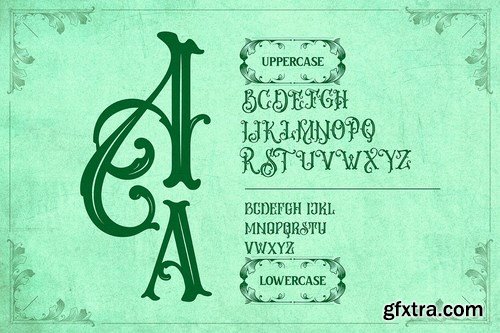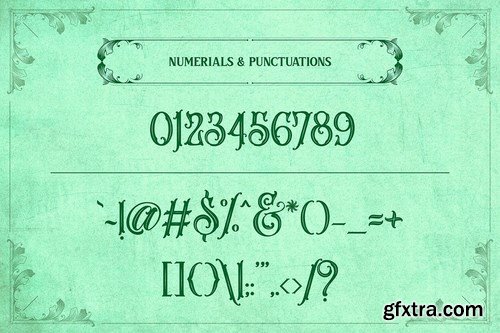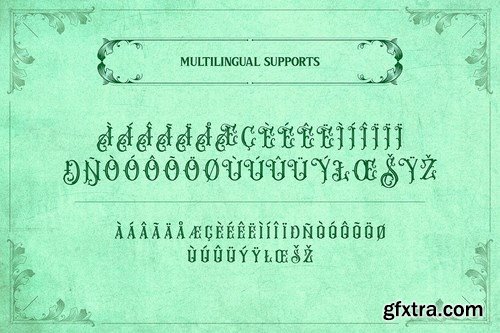
MELVCA is a display font with a vintage art nouveau-style theme. Typeface Melvca itself is inspired by the form of leaves / tendrils, like art nouveau features that contain a lot of floral elements.
Melvca will be very suitable for making logo badge designs, liquor label designs, poster designs, packaging designs, and others. and supported by extra bonuses in the form of ornaments, illustrations and a little badge template, so it is expected to help in making your design layout later. Melvca has beautiful letters both Lowercase, Uppercase, Numbers and Punctuation, and there are several Alternative Characters as supporters. In addition to OTF and TTF files from the font itself, we also include extra bonus Ornaments, Illustrations and Badges in the form of AI and EPS files. YOU WIL GET : Melvca.otf Melvca.ttf Extra Ornaments.ai Extra Ornaments.eps Extra Illustrations.ai Extra Illustrations.eps Extra Badges.ai Extra Badges.eps Features : Alternative Characters. Extra Ornaments. Extra Illustrations. Extra Badges. Support Multilingual Characters. To enable the OpenType Stylistic alternates, you need a program that supports OpenType features such as Adobe Illustrator CS, Adobe Indesign & CorelDraw X6-X7. Guides to access all alternates glyphs : http://adobe.ly/1m1fn4Y To open AI and EPS files you can use minimal software that supports Illustrator 10. P A S S W O R D MELV43RFGV_GFXTRA